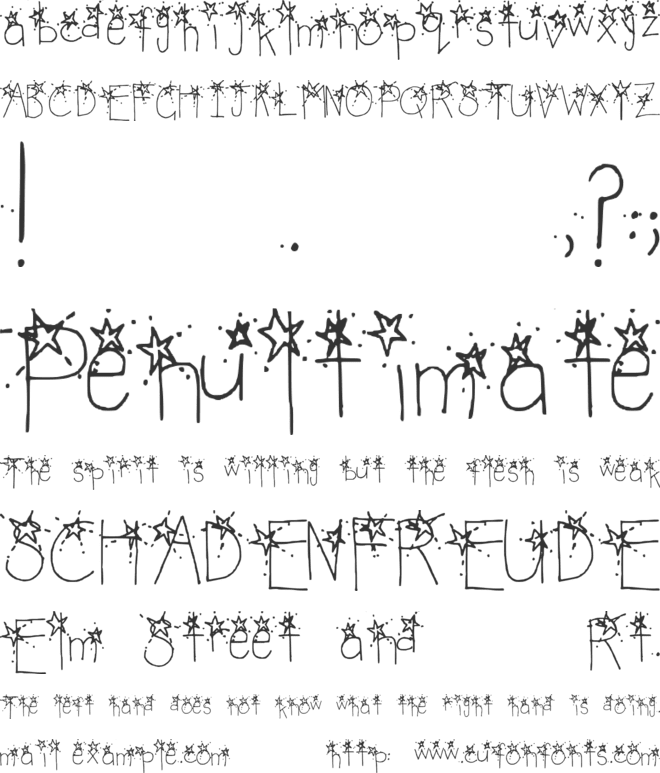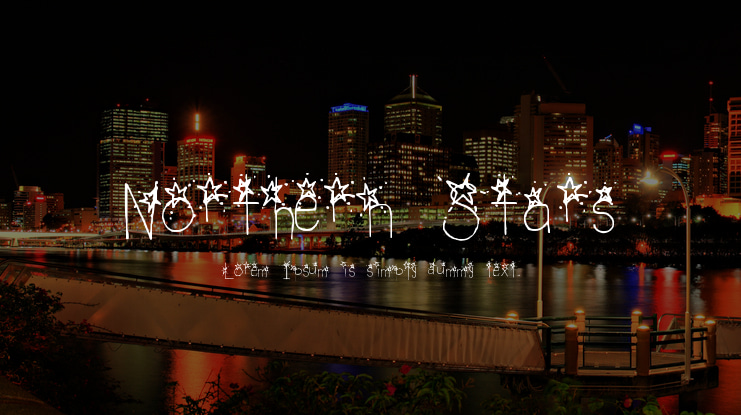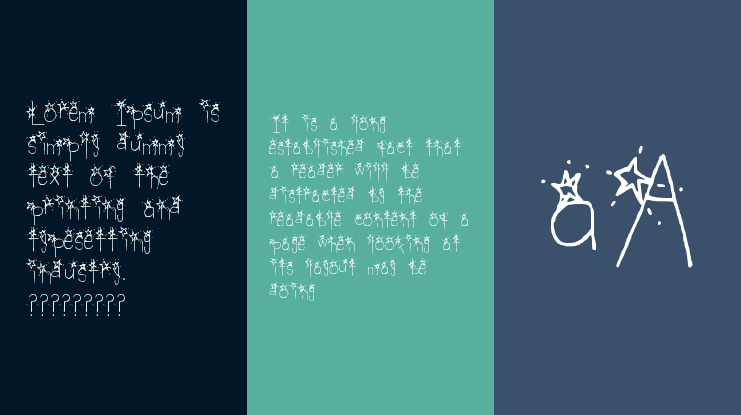
Northern Stars Font
This is a starry themed font. I haven't actually had time to try it yet, but some or all of those stars could be coloured in via the program 'Paintbrush' - if you wanted a fun, colourful vibe to it. The background image was free to use from Pixabay. If you would like to use this font commercially, it only costs 99c from https://www.creativefabrica.com/designer/shelley-2 Thank you!